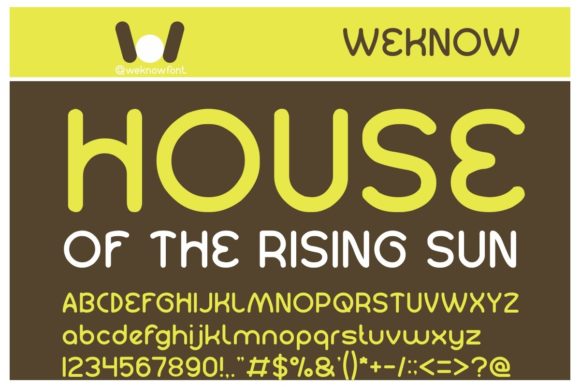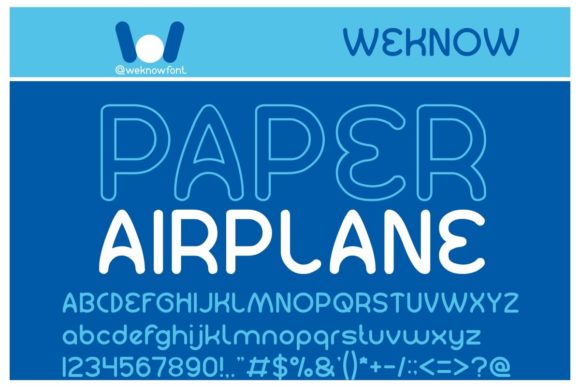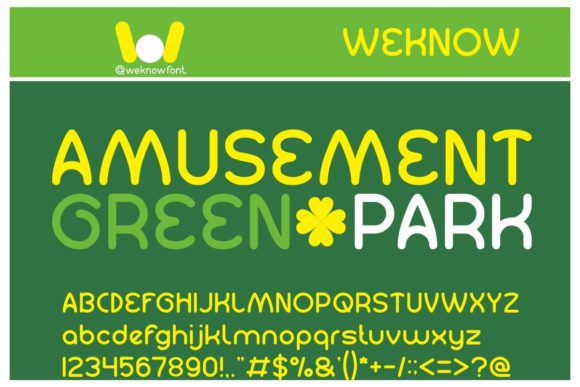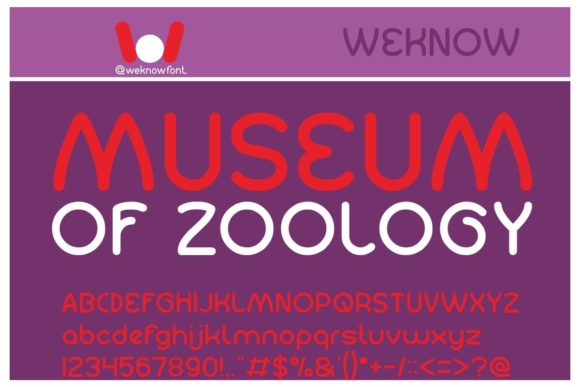
Guitar Acoustic Font: Elevate Your Designs with a Cool and Simple Display Font
Are you a designer or crafter looking for a unique and versatile font to add a touch of personality to your projects? Look no further than the Guitar Acoustic Font. This cool and simple display font is perfect for a wide range of designs, from posters and flyers to logos and branding materials. In this article, we’ll take a closer look at the Guitar Acoustic Font, its features, and how you can use it to elevate your designs.
What is Guitar Acoustic Font?
Guitar Acoustic Font is a beautifully crafted display font that is inspired by the world of music. Its unique and stylish design makes it perfect for adding a touch of personality to your designs. The font is highly legible, making it easy to read and understand, even at large sizes. Whether you’re designing a poster, flyer, or logo, the Guitar Acoustic Font is sure to make your project stand out.
Key Features of Guitar Acoustic Font
The Guitar Acoustic Font has several key features that make it a great choice for designers and crafters. Some of its notable features include:
- Cool and Simple Design: The Guitar Acoustic Font has a cool and simple design that makes it perfect for a wide range of designs.
- Highly Legible: The font is highly legible, making it easy to read and understand, even at large sizes.
- Endless Variations: The font has endless variations, allowing you to experiment with different styles and effects to create a unique look.
- Experiment with Different Sizes: The Guitar Acoustic Font looks great at large sizes, but it can also be used at smaller sizes to add a touch of personality to your designs.
- Play with Colors: The font looks great in a variety of colors, so don’t be afraid to experiment with different color schemes.
- Add Effects: You can add effects such as shadows, gradients, and textures to give the font a unique look.
The Guitar Acoustic Font is perfect for designers and crafters who are looking for a unique and versatile font to add a touch of personality to their projects. Whether you’re designing a logo, poster, or flyer, this font is sure to make your project stand out. Its highly legible design makes it easy to read and understand, even at large sizes.
Benefits of Using Guitar Acoustic Font
There are several benefits to using the Guitar Acoustic Font, including:
- Unique Design: The font has a unique and stylish design that makes it perfect for adding a touch of personality to your designs.
- Highly Versatile: The font is highly versatile and can be used in a wide range of designs, from posters and flyers to logos and branding materials.
In conclusion, the Guitar Acoustic Font is a cool and simple display font that is perfect for designers and crafters who are looking for a unique and versatile font to add a touch of personality to their projects. Its highly legible design, endless variations, and ease of use make it a great choice for a wide range of designs. So why wait? Download the Guitar Acoustic Font today and start creating stunning designs that will leave a lasting impression.
Have fun with this beautiful font and explore its endless variations. With the Guitar Acoustic Font, the possibilities are endless, and you’re sure to create something truly special.